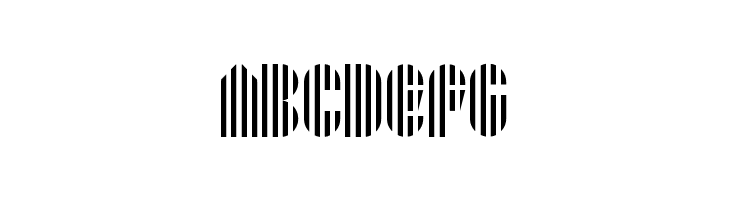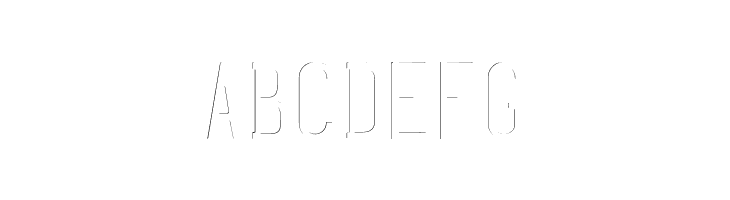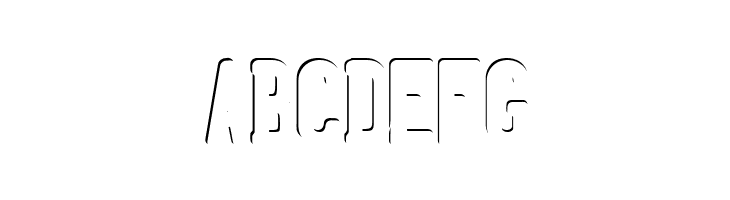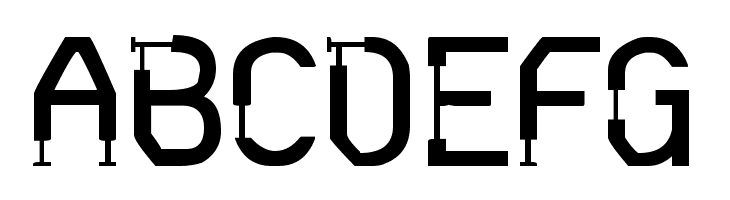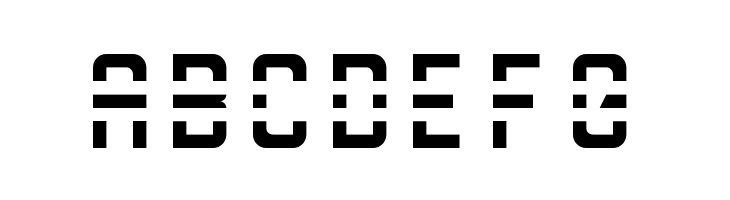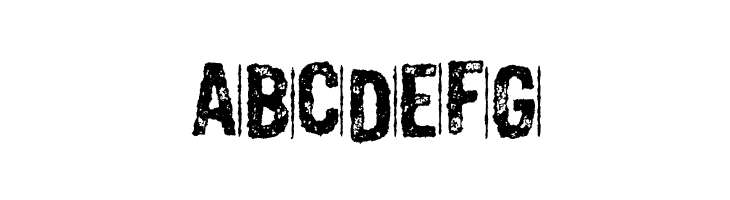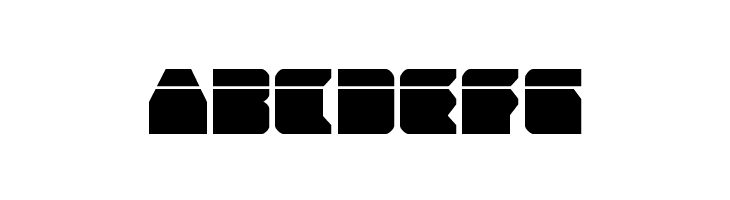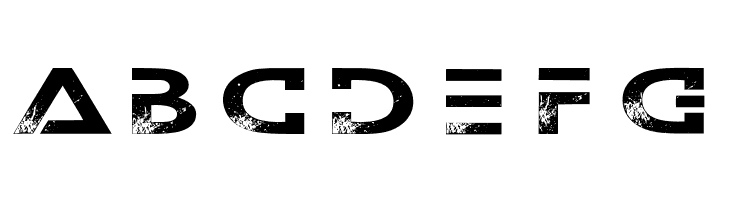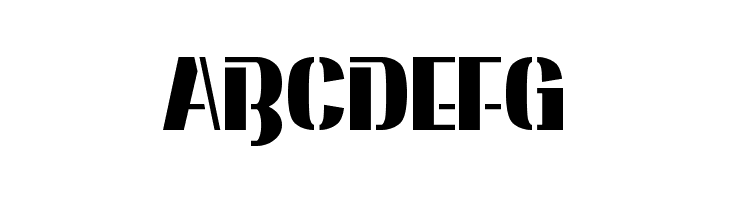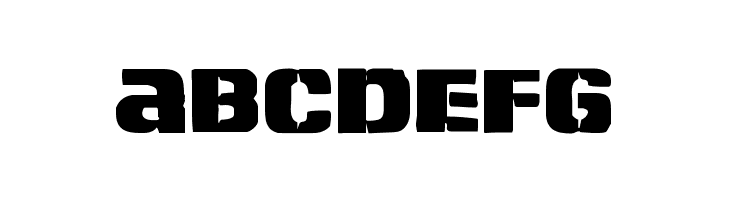
A bold, striped stencil-like font with a modern, geometric design.
A bold, geometric font with a mechanical, stencil-like design.
A modern, geometric stencil font with bold, straight lines and cut-out sections.
A bold, distressed font with a grunge, stencil-like appearance.
A bold, geometric stencil font with a futuristic and industrial style.
A bold, futuristic font with a distressed, stencil-like appearance.
A bold, stencil-like font with high contrast and geometric shapes.
A futuristic, geometric font with a stencil-like, digital aesthetic.
A bold, stencil-style font with sharp angles and distinct gaps.
A modern, hatched stencil font with a technical and industrial vibe.
A bold, geometric stencil font with clean lines and distinct gaps.
A bold, distressed stencil font with an industrial, rugged appearance.
A bold, condensed font with a rugged, industrial style.
A bold, distressed stencil-like font with an industrial, rugged appearance.
A bold, distressed font with a rugged, stencil-like appearance.
A bold, stencil-like font with a rugged, dynamic style and slanted characters.
A bold, stencil-style font with a military and industrial feel.
A bold, geometric stencil font with a modern, industrial style.
A bold, distressed stencil-style font with an industrial feel.
A futuristic, geometric font with bold, rounded shapes and a stencil-like appearance.
A bold, geometric font with a military-inspired, stencil-like design.
A bold, geometric stencil font with a modern, abstract style.
A bold, geometric font with an industrial, stencil-like appearance.
A bold, modern font with a stencil-like, industrial design.
A bold, vintage-style font with a stencil-like design and strong visual impact.
A bold, stencil-like font with sharp, angular edges and geometric shapes.
A futuristic, geometric font with rounded edges and a stencil-like design.
A modern, geometric font with a monoline, stencil-like design.
A bold, geometric font with an industrial, stencil-like design.
A bold, geometric font with a futuristic, stencil-like design.
A bold, stencil-like font with geometric cutouts and a modern industrial style.
A bold, geometric font with an industrial, stencil-like design.